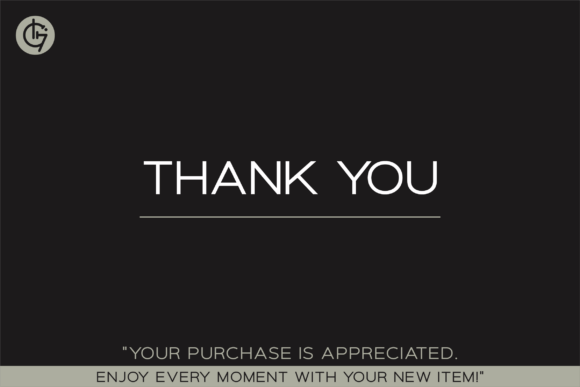
Introduction to Proximate Font
Have you ever stared at a blank canvas, waiting for the perfect design to emerge? For designers, those moments of creative block can be frustrating, but also an opportunity to discover something new and exciting. For me, that moment came when I stumbled upon Proximate Font – a modern sans serif typeface that exudes strength and authority. With its clean lines and minimalist aesthetic, Proximate Font is the perfect design resource for creatives looking to make a statement.
Whether you’re working on a branding project, designing a logo, or crafting a website, Proximate Font is a valuable addition to your toolkit. Its all-caps design emphasizes clarity and readability, making it ideal for headlines, posters, and anywhere you need your message to stand out. Plus, with a high-quality design like Proximate Font, you can achieve a professional look without compromising on style.
But what really sets Proximate Font apart is its versatility – from digital interfaces to high-end branding, this font is perfect for any creative project that requires a sense of professionalism and impact. And the best part? It’s available for free download, making it an accessible design resource for designers of all levels.
Key Features of Proximate Font
- High-quality design for creative projects, suitable for use in various mediums, including digital and print.
- Transparent background, allowing for seamless integration with other design elements.
- Unique characteristics include a modern, minimalist aesthetic, making it perfect for use in logos, branding, and typography-based designs.
- Part of a comprehensive font family, offering a range of styles and weights to suit various design needs.
Honest Review: Proximate Font
I recently had the chance to experiment with the Proximate Font, and I must say it’s been a game-changer for my design projects. This high-quality font is a great addition to any design resource library.
- ✨ High-quality design: The Proximate Font boasts clean lines, crisp typography, and a modern aesthetic that’s perfect for creative projects.
- ✨ Transparent background: The font’s transparent background makes it easy to use as a overlay or as a design element in your project.
- ⚠️ Limited font weights: While the font has a good range of styles, I found the font weights to be somewhat limited, which may not be ideal for designers who need a wider range of options.
- ⚠️ Not suitable for small text: Due to its bold nature, I found the font to be less suitable for small text sizes, where it may become difficult to read.
Overall, I’m impressed with the Proximate Font, and I’d definitely recommend it as a design resource for any creative project. Its high-quality design, free download, and transparent background make it a valuable addition to any designer’s toolkit.
Proximate Font
Proximate Font is a high-quality design resource perfect for creative projects. With a transparent background, it’s easy to integrate into any design.
Tips for Getting the Most Out of Proximate Font
To get the most out of Proximate Font, experiment with different font sizes, colors, and combinations to create a unique and eye-catching design.
Proximate Font is commonly used in branding, logos, and marketing materials. Its transparent background makes it perfect for creating custom designs and graphics.